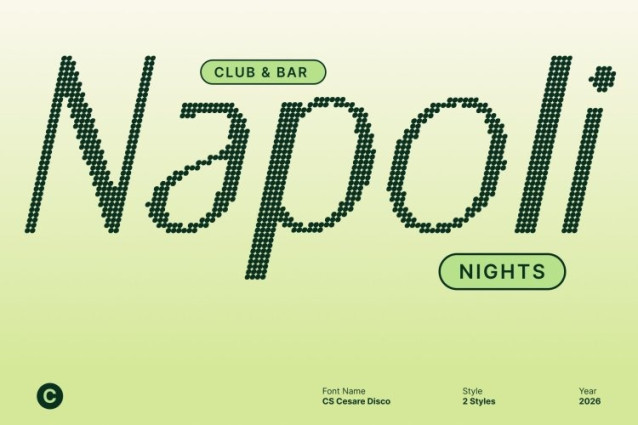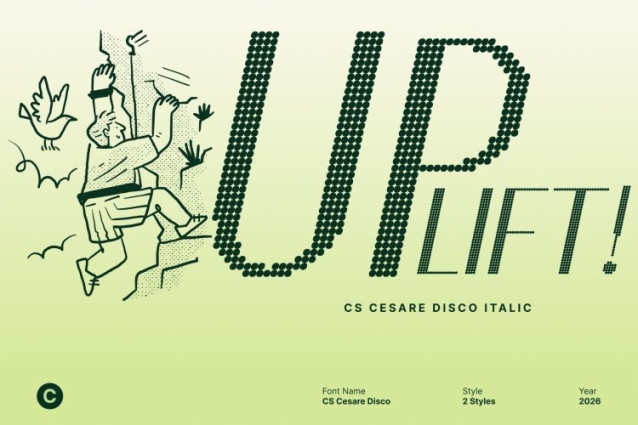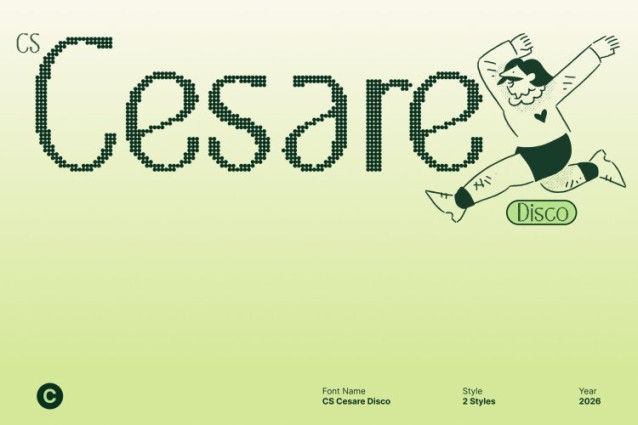
CS Cesare Disco Font
CS Cesare Disco Font This is a clean, modern sans serif font crafted with a minimalist philosophy and elevated by a touch of disco-era glamour. Its precise construction, smooth curves, and perfectly balanced proportions create an elegant visual tone that feels sophisticated, confident, and quietly radiant like polished typography under soft club lights.
Minimal Design with Subtle Nightlife Sophistication
The minimalist approach allows refined details to shine through restraint. Consistent stroke weight, generous spacing, and clean letterforms deliver a calm, polished appearance, while the disco influence introduces a sense of modern luxury and after-dark allure. The result is elegance that feels fresh, stylish, and effortlessly cool.
Refined Structure for Fashion, Tech, and Premium Branding
Designed to perform flawlessly across digital and print media, this font offers excellent readability with a high-end finish. Its refined structure communicates exclusivity, trust, and contemporary sophistication making it ideal for fashion labels, lifestyle brands, modern tech identities, and upscale communication.
Perfect for Luxury Brands, Logos, and Modern Visual Systems
This font excels in luxury branding, minimalist logos, fashion campaigns, editorial layouts, and refined web design. Its elegant sans serif form enhances brand presence with clarity, confidence, and a subtle disco-inspired glow modern luxury without excess.